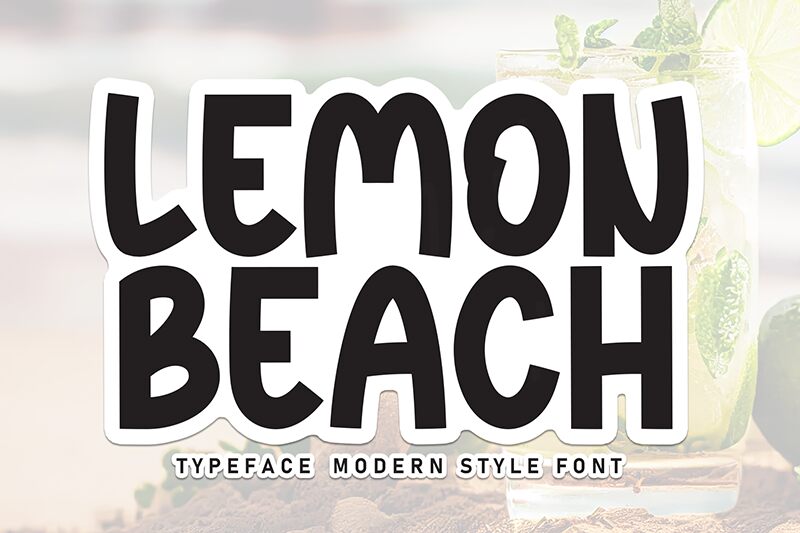
Lemon Beach
Lemon Beach font by Scratchones is a free display font with cartoon bold characters. The letters are built using slightly irregular shapes that give them a casual, friendly, and retro-inspired look. Their rounded corners evoke a relaxed atmosphere while each character’s steel outline enhances the authentic typewriter impression.
Build branding and labels using Lemon Beach for message cards, apparel items, postcards, workshops, notebook covers, journals, book or movie title designs. Its style allows it to decorate logos and packages as well especially if drawn to items related to kids' toys or foods.